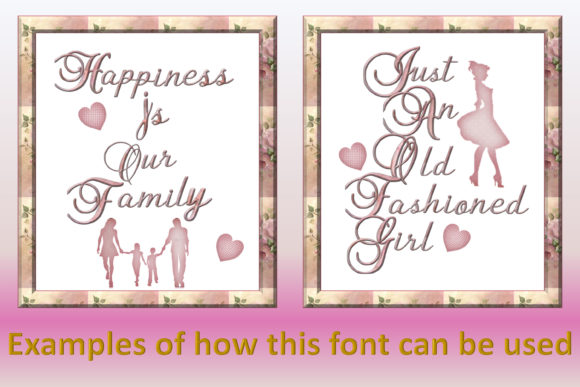
Vintage Delights Font
About Vintage Delights Font
This quirky little font comes with capital letters and small letters plus punctuation. It is ideal for craft projects, making quotes, tags, journals and scrapbooks and many other cute craft projects.